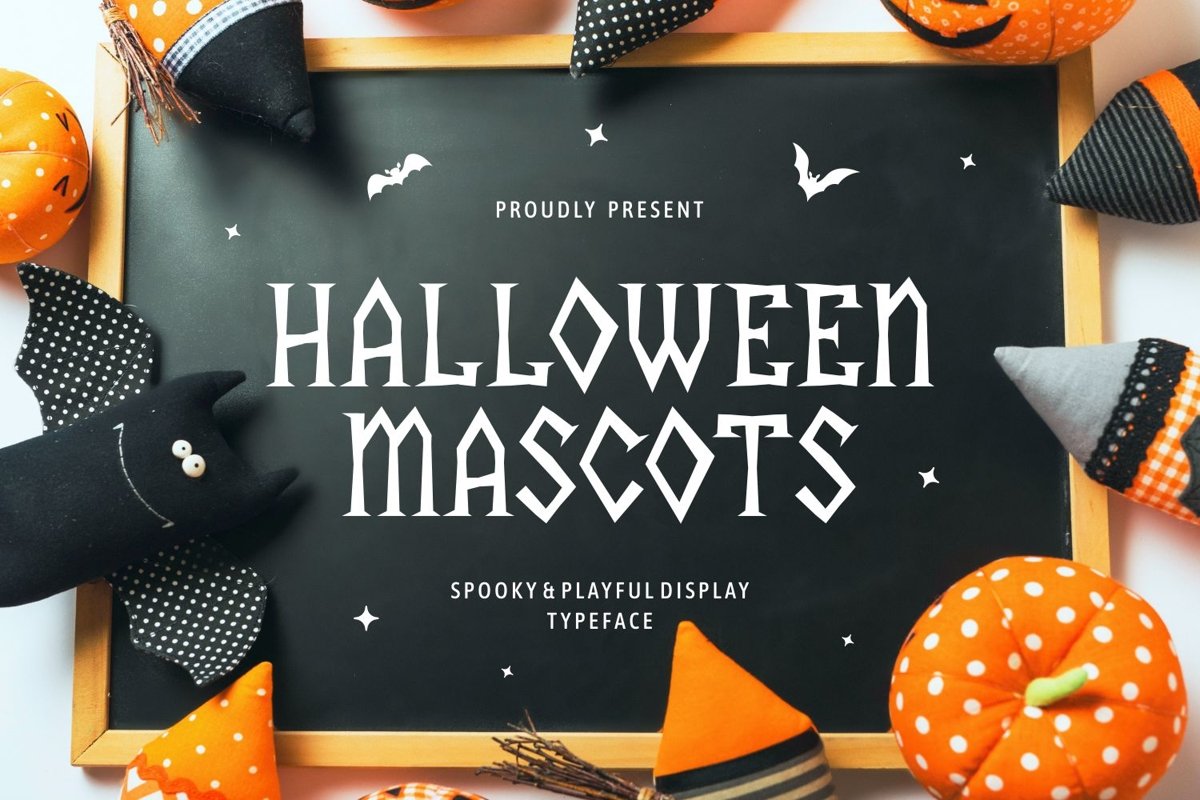
Halloween Mascots is serif display come with halloween themes. It is the perfect font for the scariest time of the year. It matches applies in some designs such as the logotype, brand, packaging, quotes, poster, t-shirt, cover book, invitation and more custom design. The features uppercase, lowercase, numeral, punctuation & symbol, multilingual support, PUA encoded (fully accessible without additional design software).